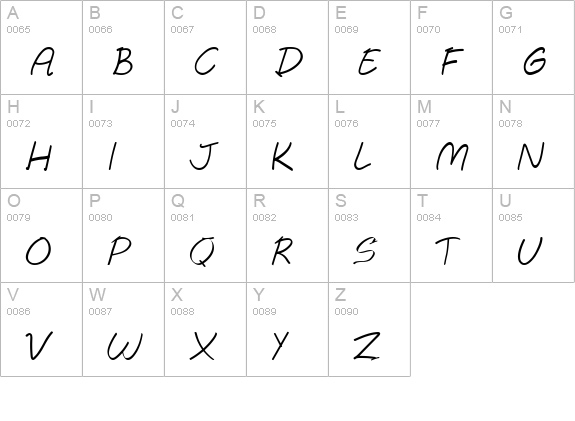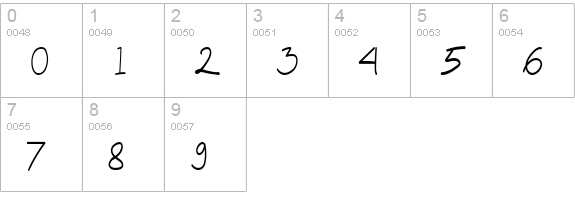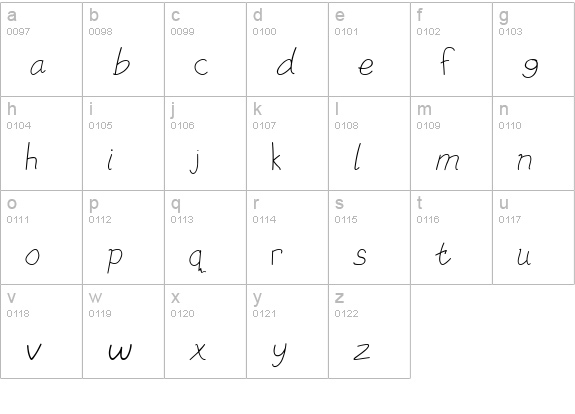
Triloka Font Details
Triloka font is a stunning display font that combines elegance and modernity in a unique way. Its smooth curves and stylish letterforms make it perfect for a wide range of design projects, from branding to packaging to social media graphics. The font exudes sophistication and creativity, making it a versatile choice for both professional and personal use.